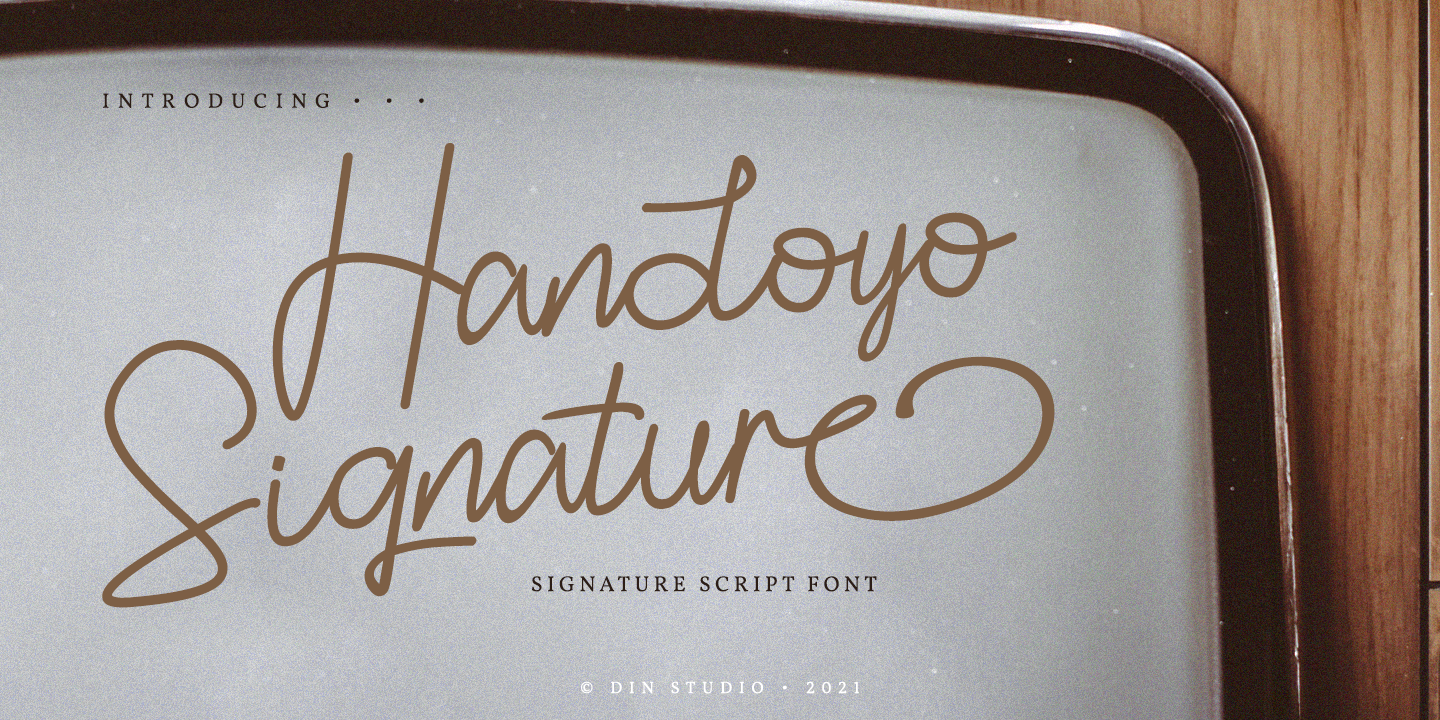
The Handoyo Signature Font is an exquisitely elegant and personal script typeface, specifically designed to emulate the authentic flow and distinctive style of a genuine handwritten signature. Imagine its sophisticated curves gracing bespoke wedding invitations, adding an exclusive and intimate touch to high-end branding for luxury goods, or creating a unique personal mark for artists, photographers, and creative professionals. Its natural connections, subtle flourishes, and elegant ligatures also make it an excellent choice for custom stationery, heartfelt greeting cards, personalized certificates, and social media graphics that aim for a refined and authentic aesthetic. Whether you're aiming for a classic, luxurious look or a modern design infused with heartfelt charm, Handoyo Signature Font delivers with its undeniable beauty, ensuring your visuals are both inviting and truly memorable.
What makes Handoyo Signature Font so exciting is its remarkable ability to infuse designs with an immediate sense of individuality, exclusivity, and handcrafted artistry. In a digital world often dominated by rigid or impersonal typefaces, this font offers a refreshing alternative that feels genuinely unique and deeply personal. It evokes a feeling of bespoke craftsmanship and elegant authenticity, making your designs feel more approachable and memorable. It’s more than just a typeface; it’s a design element that can instantly convey emotion and sophistication, allowing designers to create work that feels more artisanal and less mass-produced. Its versatility in maintaining legibility while exuding grace makes it a highly sought-after tool for designers aiming for a distinct and impactful presence.
The Handoyo Signature Font family is typically structured to offer a thoughtful range of variations to enhance its usability and artistic potential. While the primary Handoyo Signature Regular script provides that distinctive handwritten look, you might find companion styles such as a slightly bolder Handoyo Signature Bold for emphasis, or various Handoyo Signature Swashes and ligatures that allow for even greater customization and natural flow between letters. Signature fonts of this caliber often come with extensive OpenType features, including stylistic alternates, contextual alternates, and multiple ending forms for each letter, ensuring truly organic and beautiful connections that mimic authentic penmanship. These diverse family members provide designers with the flexibility to create cohesive and sophisticated layouts that maintain the font's unique charm while offering practical solutions for various design needs.